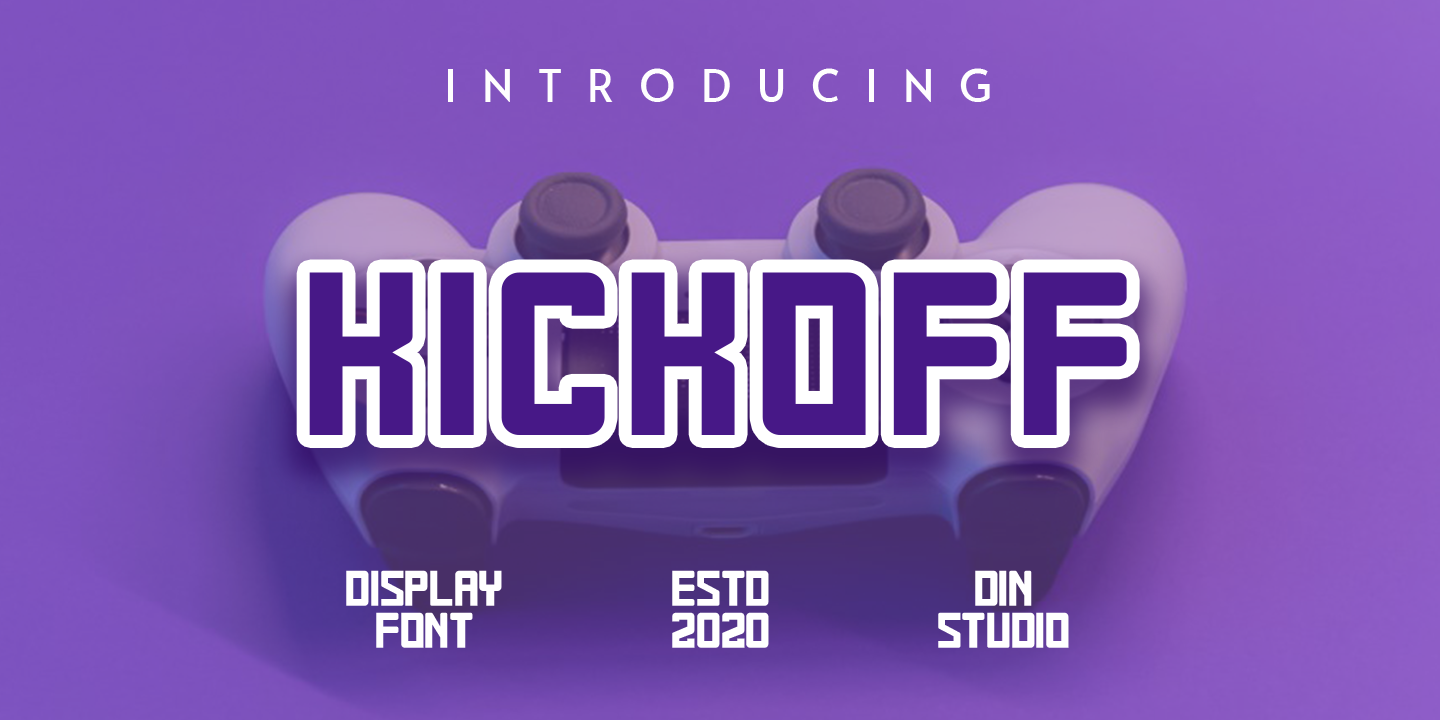
Kickoff Font is a dynamic and intensely powerful typeface, perfectly suited for projects that demand speed, adrenaline, and an unmistakable sense of energetic beginnings. Imagine it dominating the branding for a sports league, adding a thrilling and impactful edge to athletic apparel promotions, or making an unmissable statement on posters for major sporting events and championships. It's also an excellent choice for crafting striking video game titles, designing compelling merchandise for action-oriented brands, or bringing a powerful, competitive vibe to digital content and advertisements where a burst of energy is paramount. If you're looking to convey velocity, intensity, and an undeniable spirit of starting strong, Kickoff Font is an outstanding selection.
What makes Kickoff Font so exciting? It’s its unparalleled ability to combine a robust, streamlined construction with distinctive, often angular or slanted details that evoke the sensation of rapid movement and explosive force. This font is designed to stand out, with its bold strokes and assertive posture making it ideal for display purposes where impact and excitement are paramount. Despite its powerful visual presence, Kickoff Font is crafted to maintain excellent readability, ensuring that your message is delivered with both clarity and significant force. Designers will appreciate its versatility in creating designs that are both visually assertive and deeply memorable, making it a go-to choice for projects that need to embody raw power and a sense of imminent action.
The Kickoff Font family is typically designed to maximize its formidable and distinctive aesthetic. While it might primarily feature a strong Regular or Bold weight that perfectly embodies its unique style, you could find variations that enhance its utility, such as slightly condensed versions for powerful headlines, or stylistic alternatives that offer more creative typographic possibilities to deepen its dynamic appeal. These variations ensure that Kickoff Font maintains its cohesive and high-impact visual identity across different design applications, from monumental titles to supporting text that still carries significant weight. Discover the formidable power of Kickoff Font Free Download and infuse your designs with an unforgettable sense of speed and triumph.